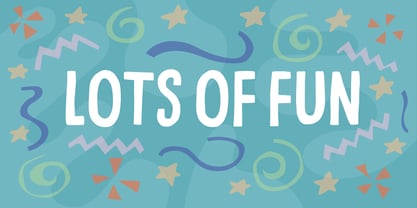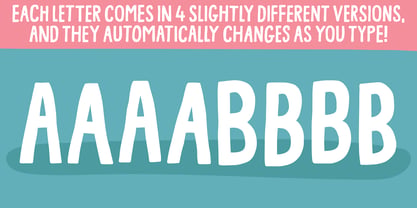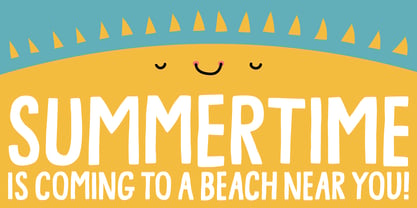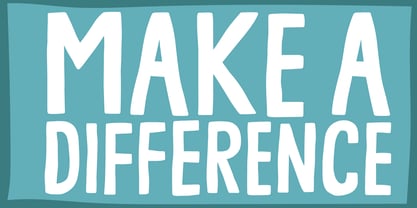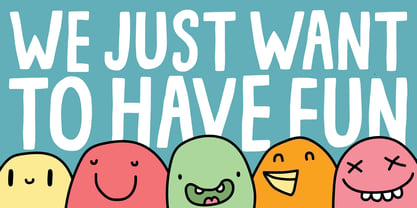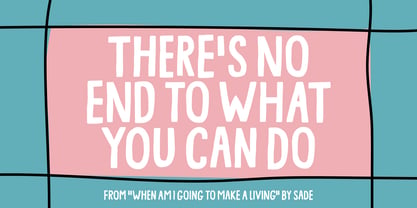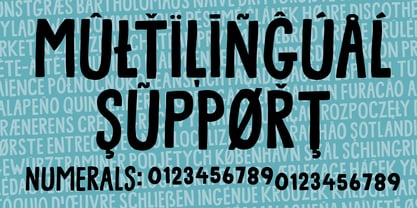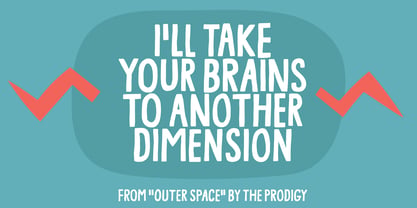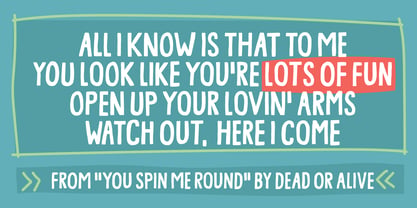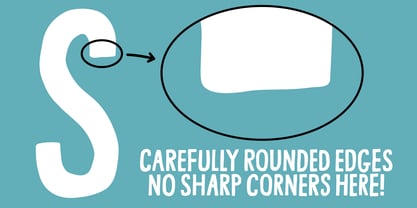
Lots Of Fun
by PizzaDude.dk
The Lots Of Fun Font Family was designed by Jakob Fischer and published by PizzaDude.dk. Lots Of Fun contains 2 styles and family package options. More about this family
Lots Of Fun” has a fun, organic, and handmade feel with soft, rounded shapes that give it a friendly and approachable look. The slight irregularities in the strokes add character and make it feel lively and vivid, even though it may look more mechanic at first sight. As a headline font, it stands out clearly while still feeling relaxed and playful. The overall style is lively and warm, perfect for bold messages that need personality without losing readability. I have added 4 slightly different versions of each letter, and they automatically cycles as you type!
Designers: Jakob Fischer
Foundry: PizzaDude.dk